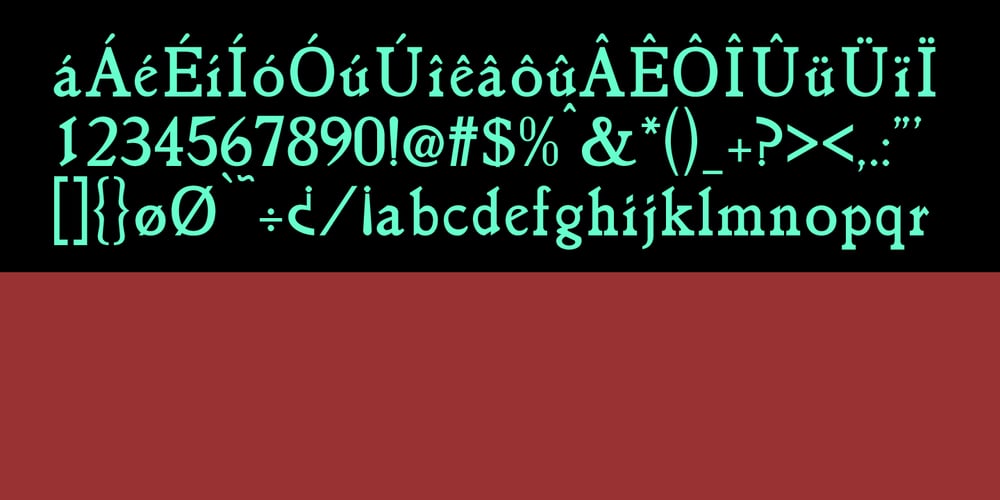
Jensen Old Style
Jensen Old Style font
Jensen Old Style Font Family was designed by Jordan Davies and published by Wooden Type Fonts. Jensen Old Style contains 1 styles and family package options. Based on the original design of Nicholas Jenson 1470-76, this is a revival of one of the popular wooden type fonts of the 19th century. This font was also created in a slightly different version by William Morris circa 1890. Suitable for text.